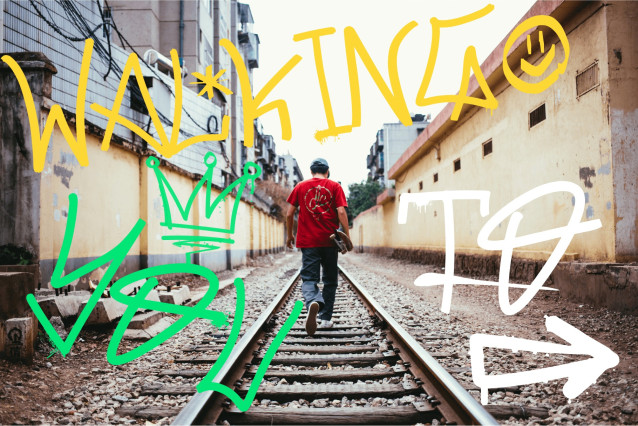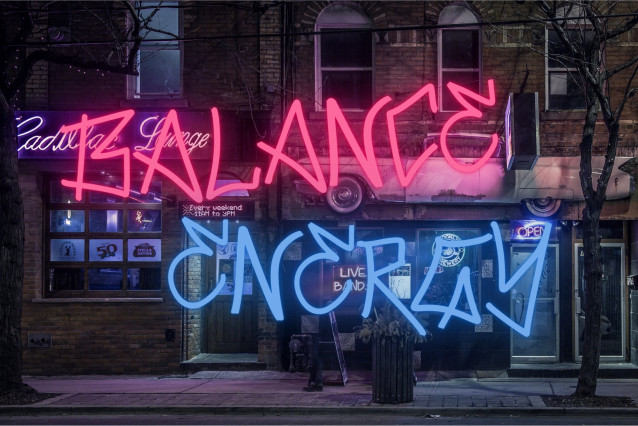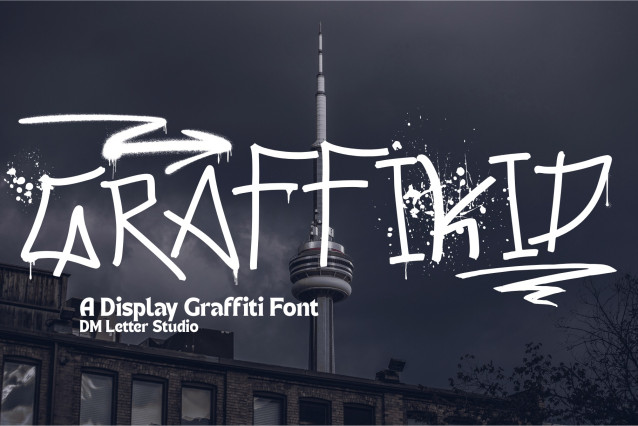
Graffikid Playful Graffiti Font
Graffikid Playful Graffiti Font is a bold and bouncy display font inspired by street graffiti and youthful creativity. Its chunky, hand-sprayed look brings an urban and rebellious energy, perfect for school projects, streetwear branding, posters, and edgy designs with a kid-core twist.